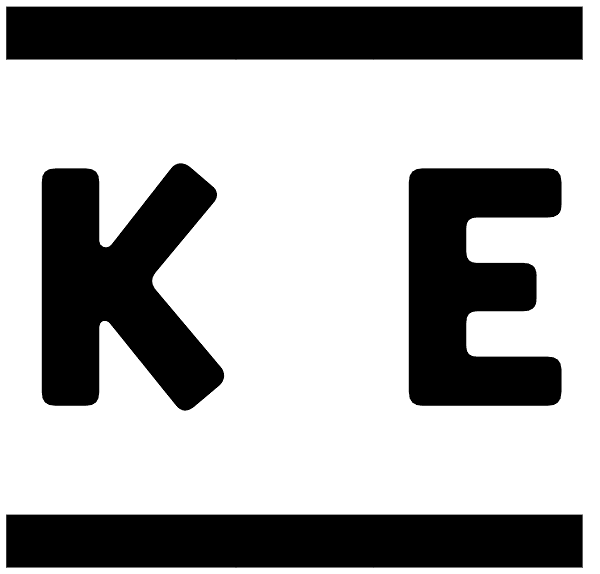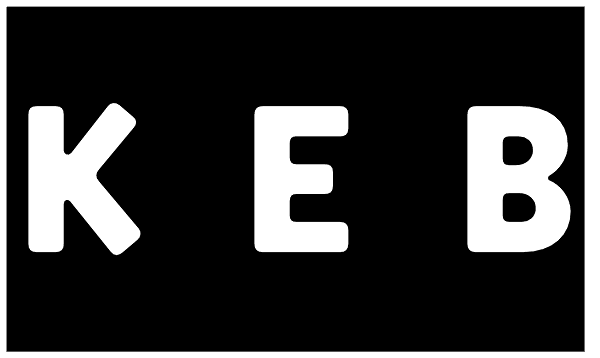
Katarine
From today's point of view Katarine has a rather unusual origin. Initially an all-caps display face, what was to become the Medium weight of the family was augmented with a lower case, then the character set was completed by adding all the missing...